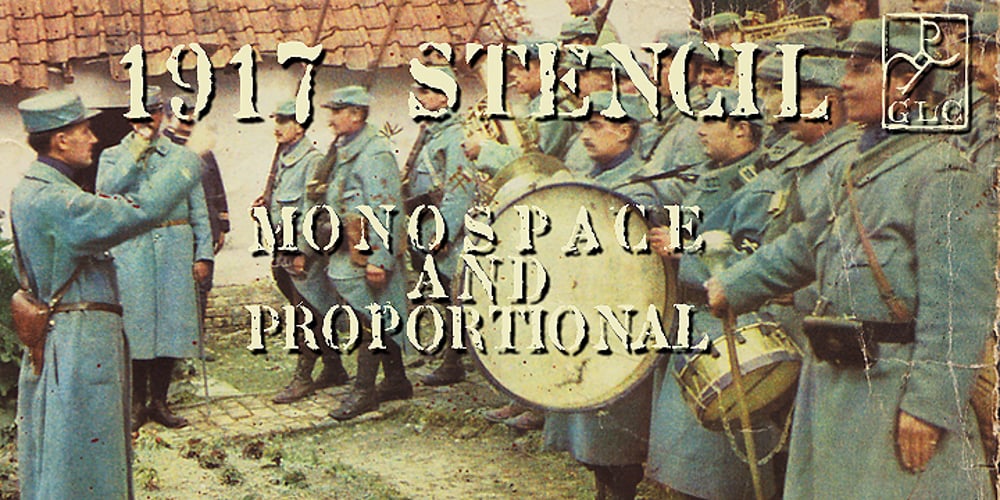
1917 Stencil Font Family was designed by published by GLC. 1917 Stencil contains 2 styles and family package options. We have created this family inspired by the old-fashioned stencil letters like those the French army used during the WWI to write on soldiers’ clothes, blankets, signals, ammunition, supplies and so on. This is a Didone-style font. We offer two variants for the same font: monospaced or proportionally spaced. Our Open Type specification allows automatic substitution of letters to avoid repeating the same glyph when a letter is repeated (for example “ee” or “bb”)(Not available with accented characters and a few others like “Q” that are never repeated in common use).